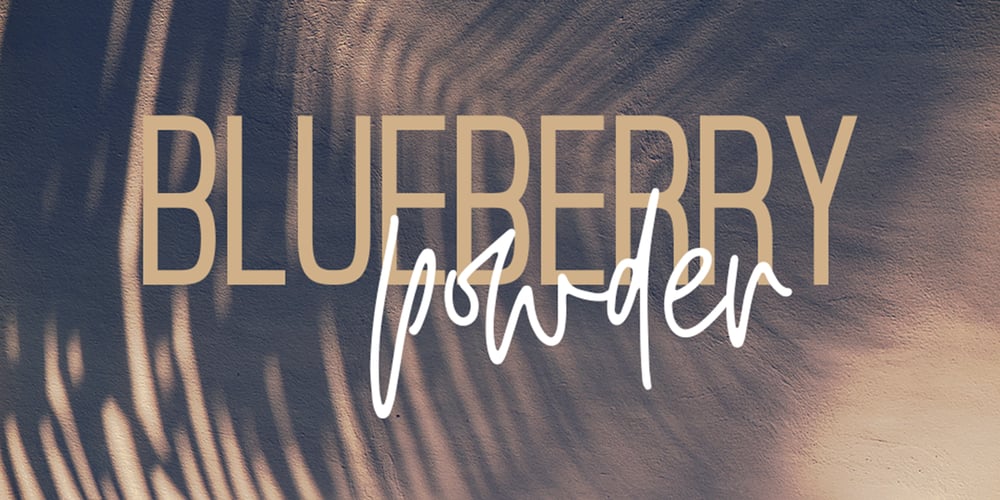
Blueberry Powder Font Family was designed by Oksana Shudegova and published by OKSHUtypeCO. Blueberry Powder contains 2 styles and family package options. About the ProductBlueberry Powder FONT DUO – a new fresh handmade calligraphy font.Very suitable for greeting cards, branding materials, business cards, quotes, posters, and more!This font are perfect for wedding postcard. Or you can create perfect and unique design of your logo, blog, stationery, marketing, magazines and more ๐ Multilanguage sans and script Ligatures